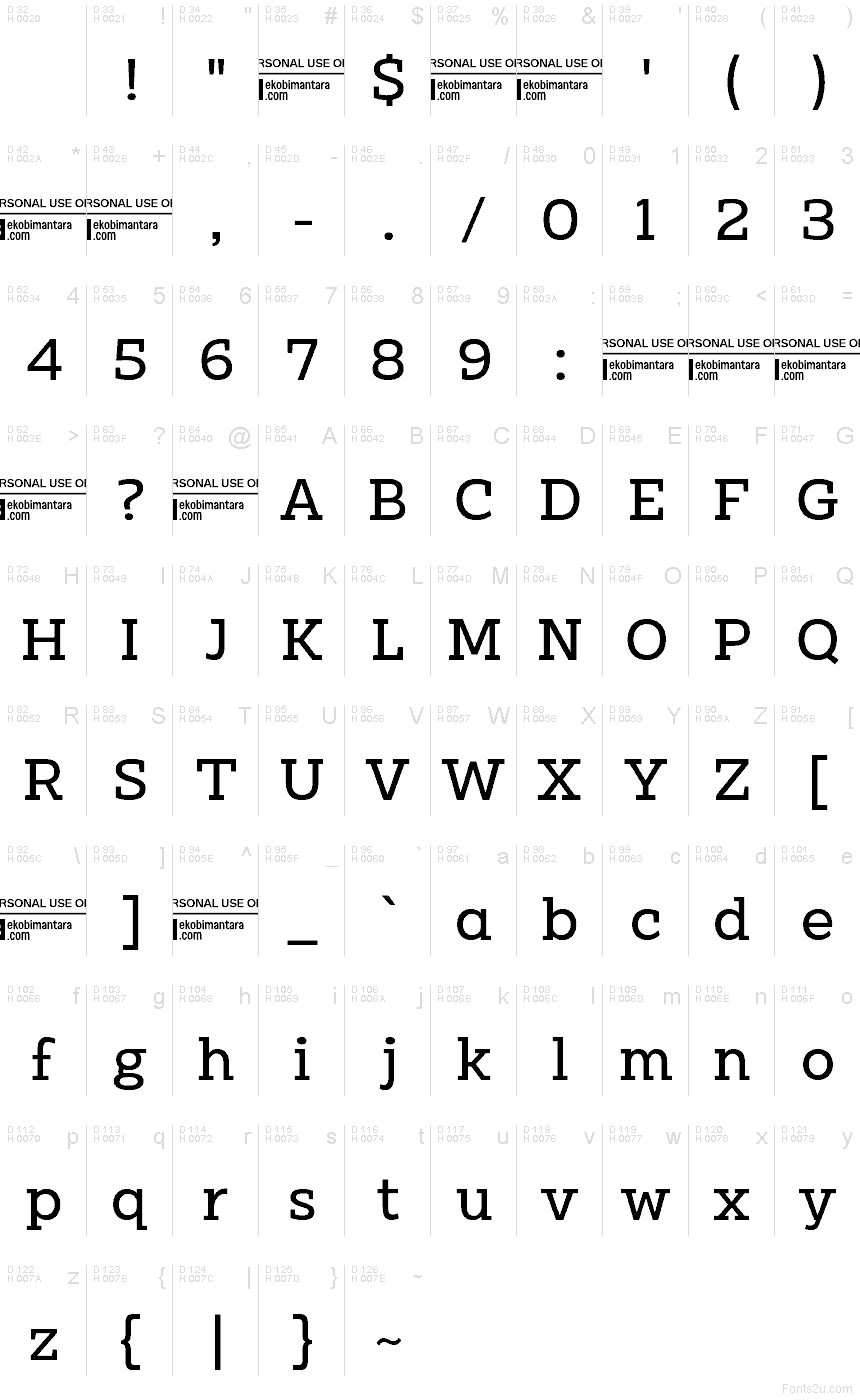
Clab Trial Regular
Clab font by Eko Bimantara is a free slab-serif font. It stands out with cushioned slabs and smooth, rounded joins that give its sturdy shapes a warm, approachable feel. The wide stance and generous apertures keep texture even at large sizes, while the low contrast and steady rhythm deliver punch without shouting—think ink-solid, not stiff.
Using Clab brings confident warmth to brand marks, editorial headlines, product packaging, café menus, event posters, and storefront signage. This free font holds together beautifully in tight wordmarks and stacked titles, thanks to its open counters and balanced spacing. Pair it with a light, neutral sans for body copy, and size Clab up a notch to let those slabs breathe.